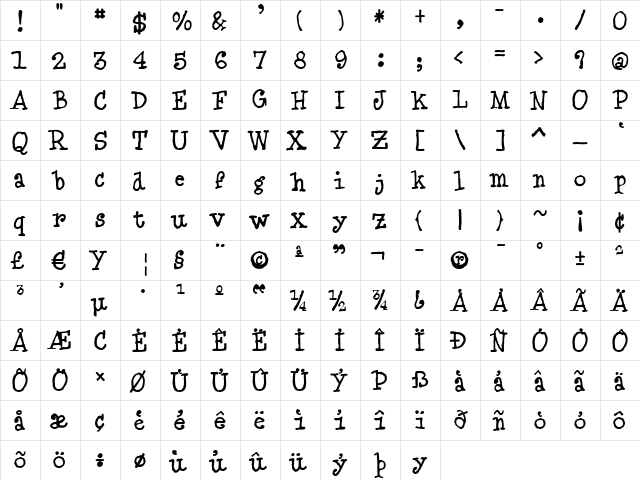
BlueType Regular
Design Context for BlueType Typeface
BlueType is a composed and adaptable typeface that performs quietly and consistently across a wide range of design contexts.
Pro Tip: Pair BlueType with a font of contrasting weight or personality to build a more expressive typographic hierarchy.